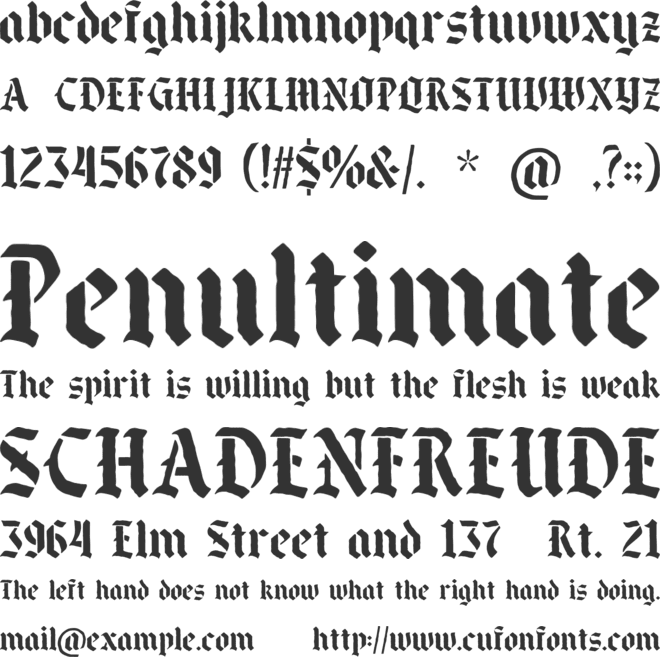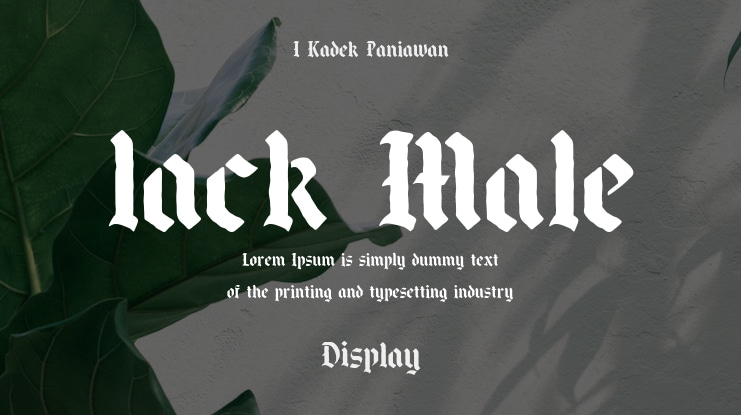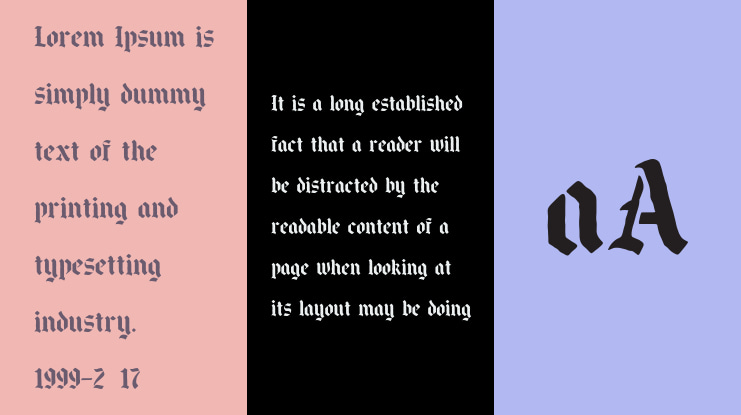
Black Male Font
I Kadek Paniawan
Balck Male – Blackletter Stencil Typeface
A Bold Fusion of Gothic Elegance and Industrial Precision
Overview
Balck Male is a meticulously designed blackletter stencil typeface, crafted to bring the perfect balance between historical calligraphy and modern industrial aesthetics. With a rich character set of 849 glyphs, this font provides extensive typographic options, including alternates, swashes, and ligatures for maximum design flexibility.
The stencil aspect is carefully engineered to ensure that every cut remains structurally sound, making it an ideal choice for screen printing, engraving, laser cutting, vinyl lettering, and more. Whether used for branding, posters, apparel, tattoos, or medieval-inspired artwork, Balck Male delivers a timeless yet edgy visual impact.